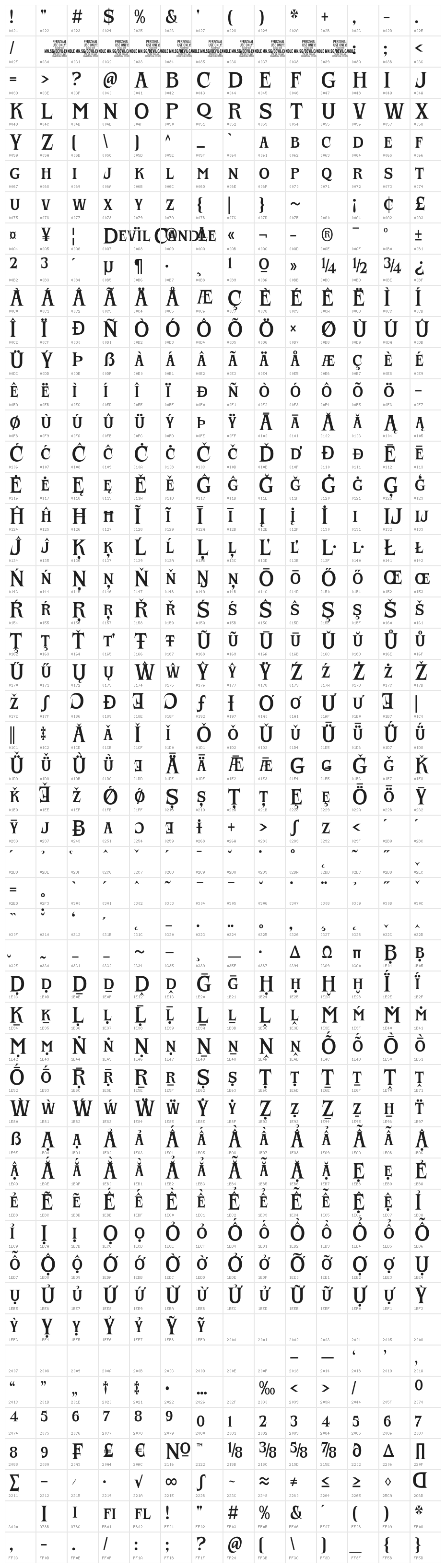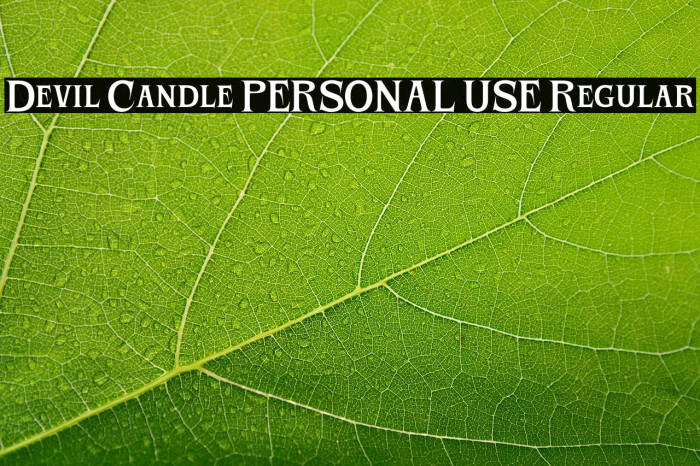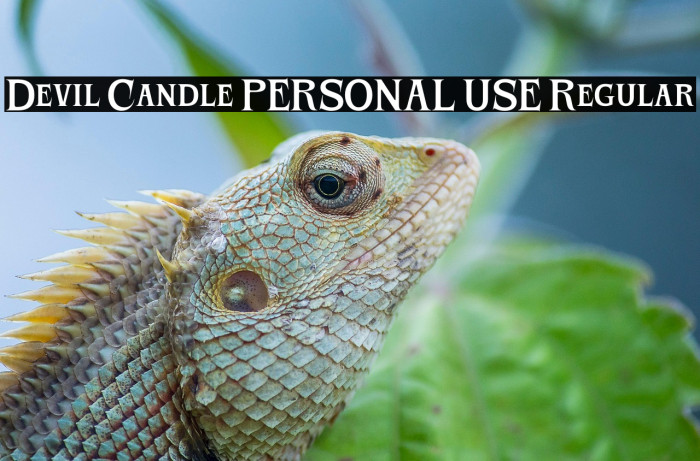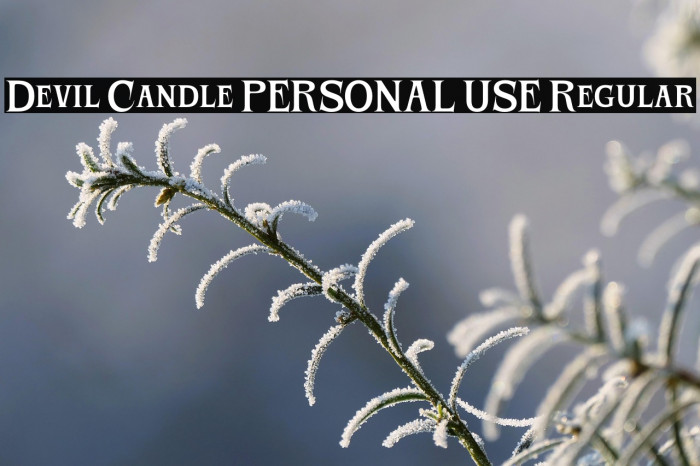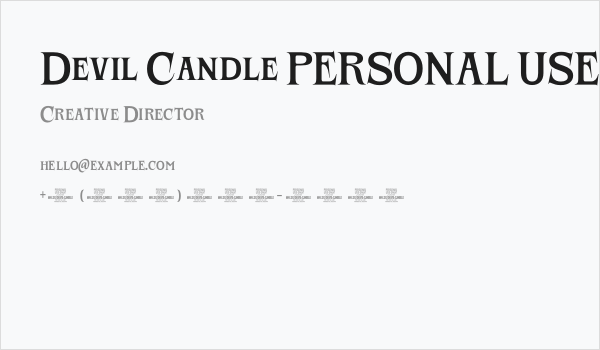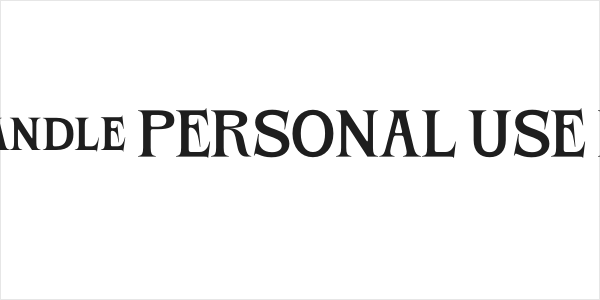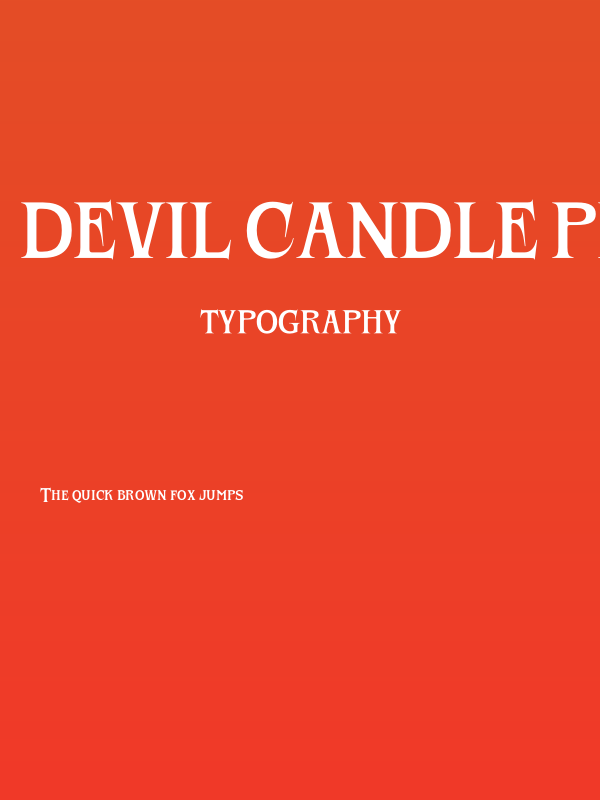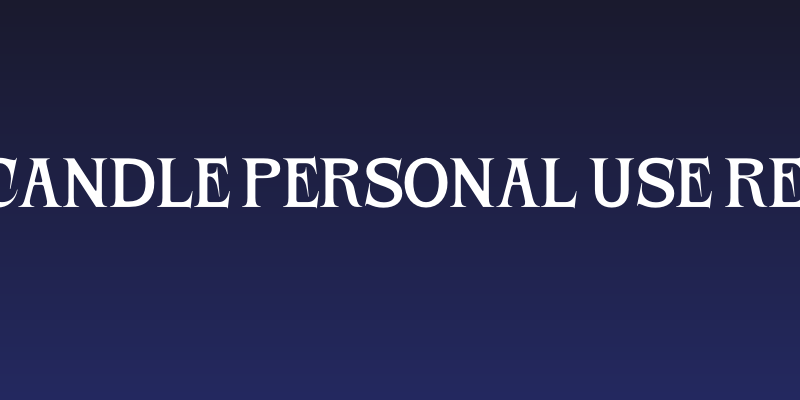
Devil Candle PERSONAL USE Regular Font
Devil Candle PERSONAL USE Regular Description
This font features a bold and dramatic style with sharp, angular serifs that give it a distinctive and edgy appearance. The uppercase letters are particularly striking, with a strong presence that commands attention. The lowercase letters maintain the same boldness, ensuring consistency throughout. The numerals and special characters are designed to match the overall aesthetic, making this font suitable for impactful and eye-catching designs. Its unique style makes it ideal for projects that require a touch of drama and flair.
| Proposed Projects | Ideal for posters, album covers, branding, and any project needing a dramatic flair. |